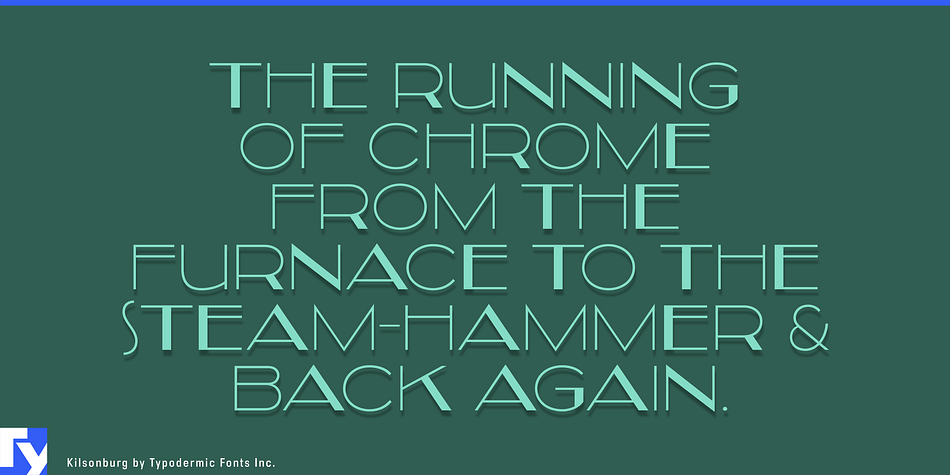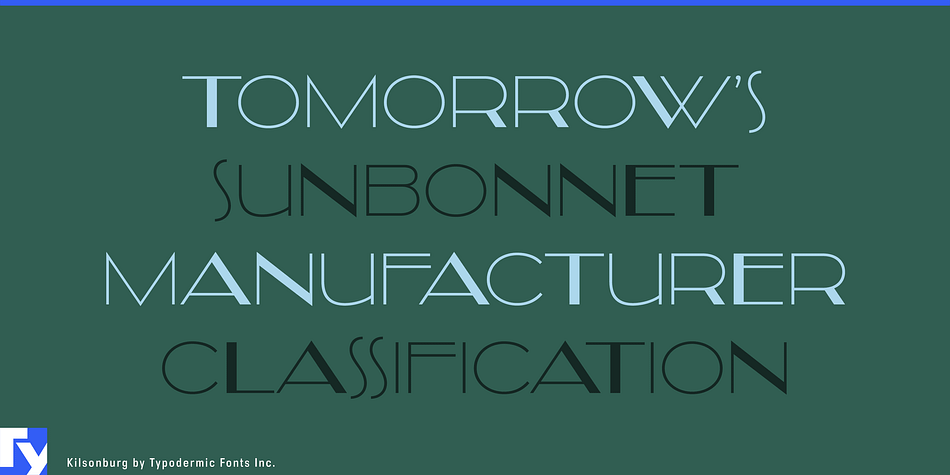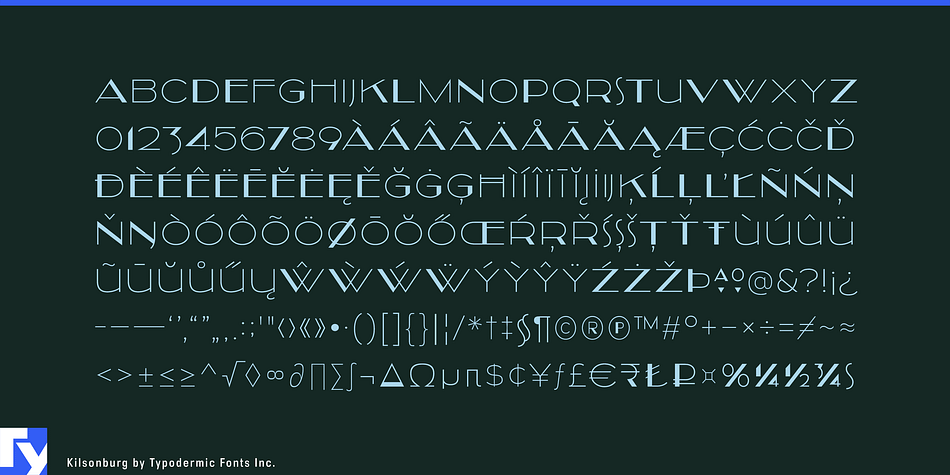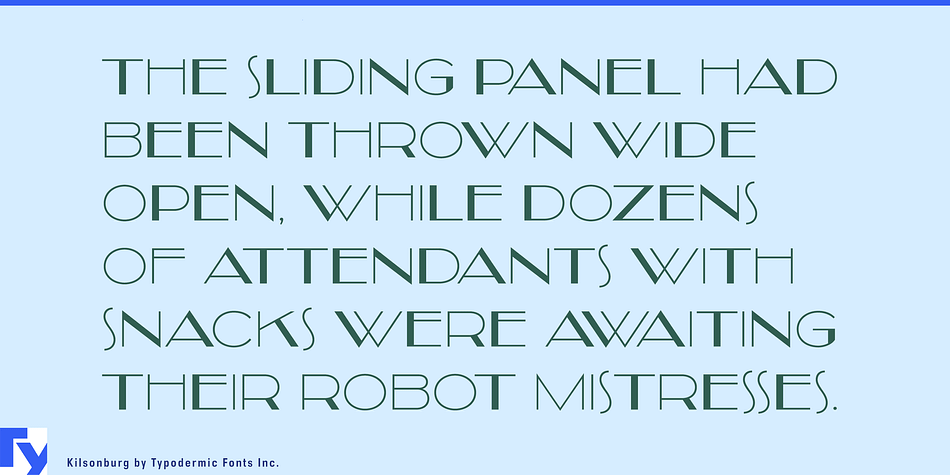
Kilsonburg is a display sans and art deco font published by Typodermic Fonts Inc.
Kilsonburg is a geometric Art Deco titling font inspired by an early 20th century Vogue magazine cover.